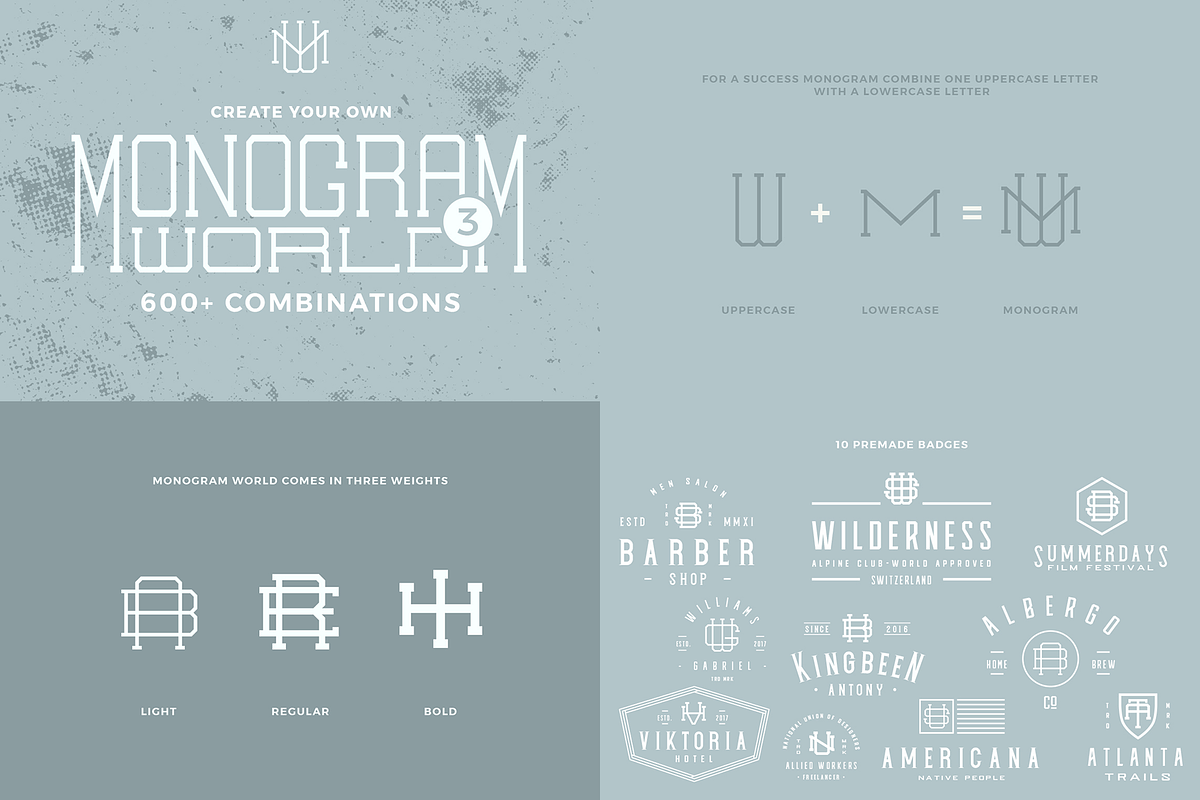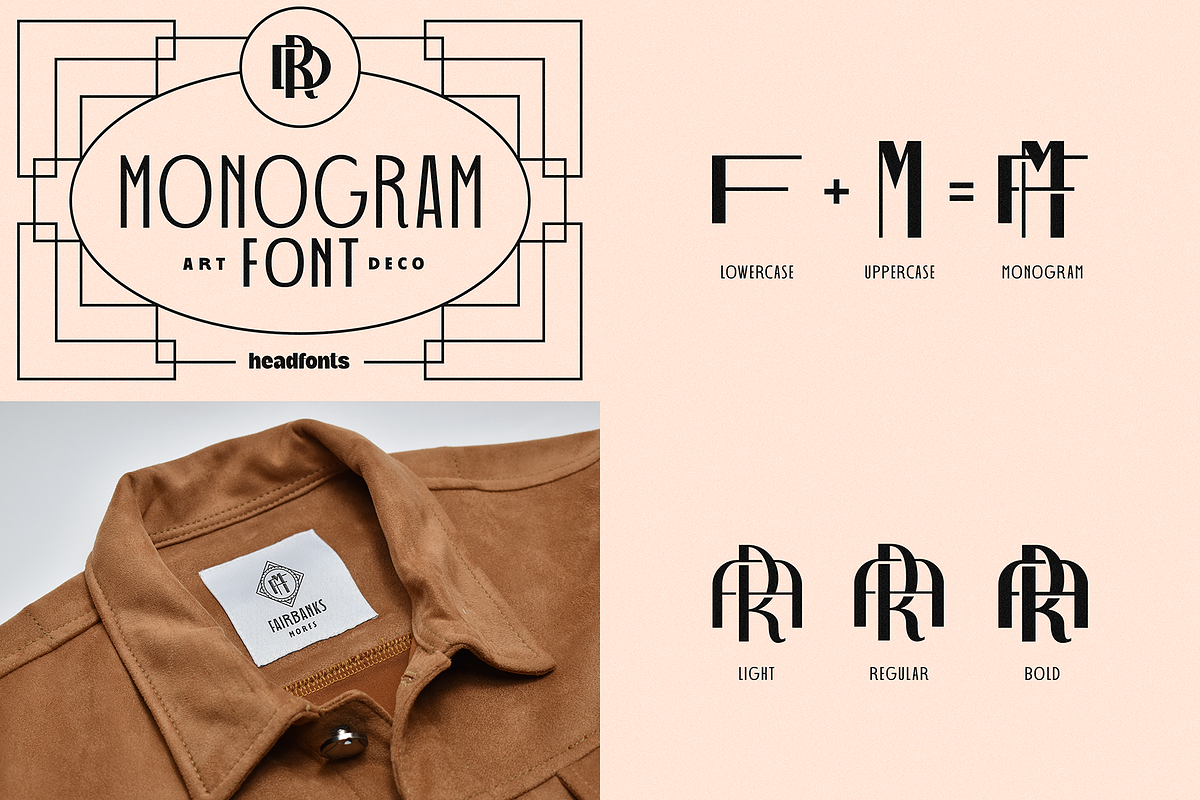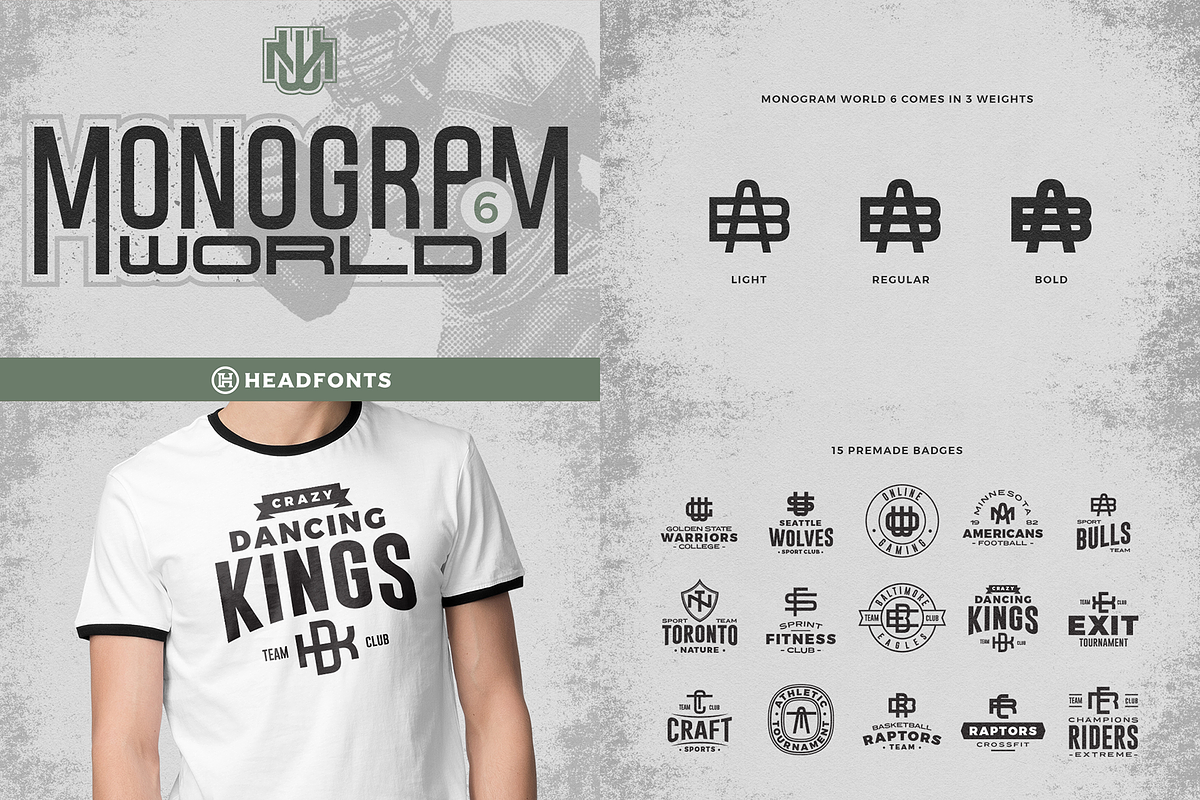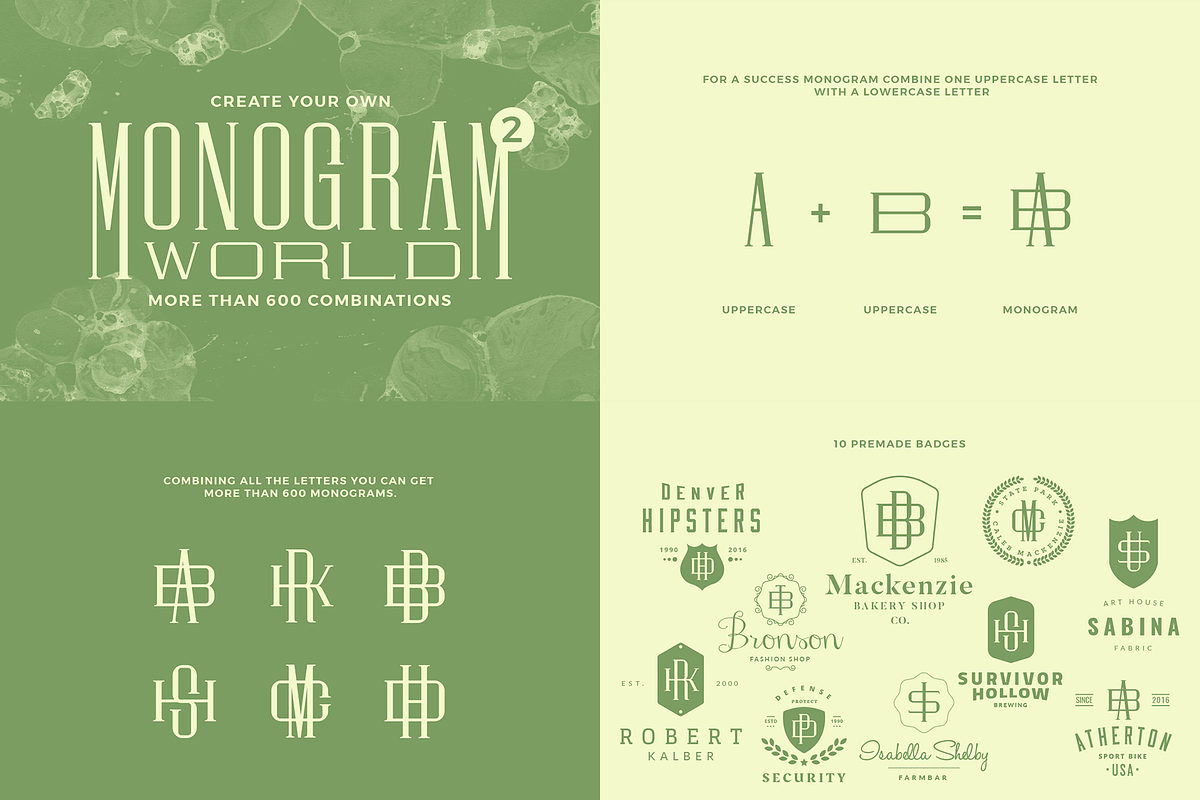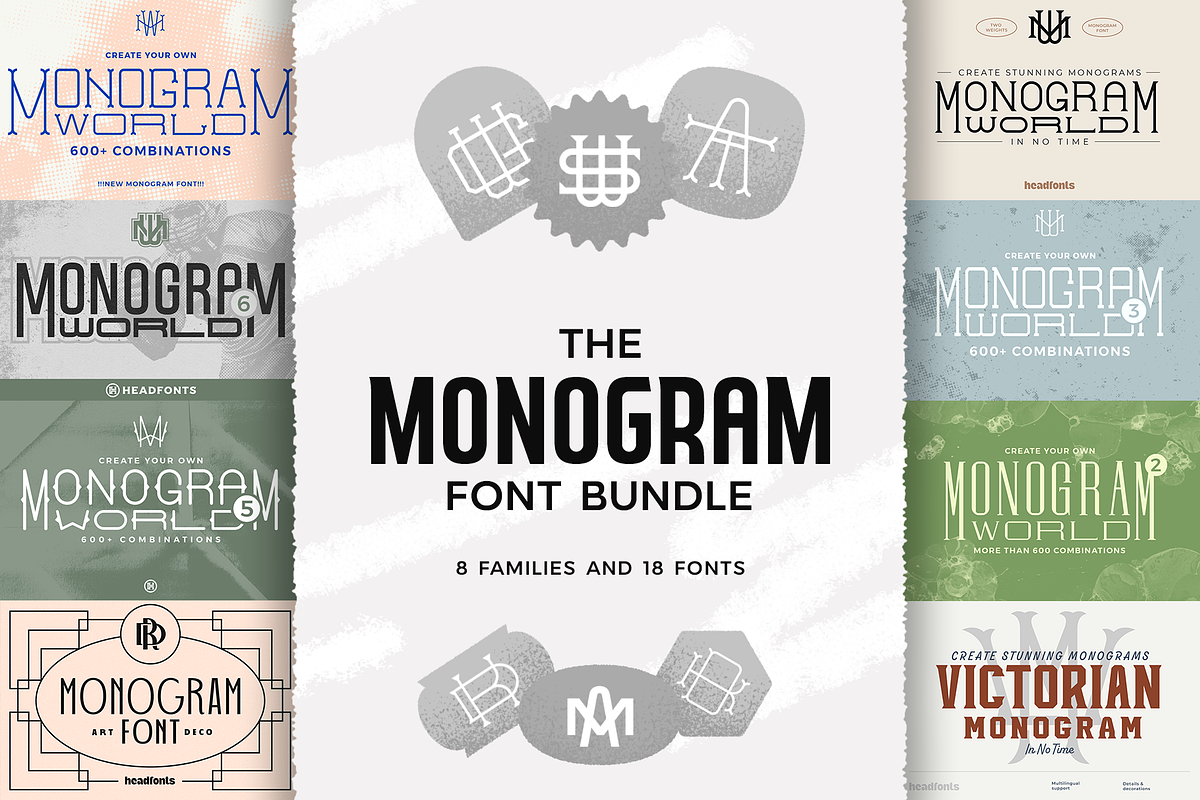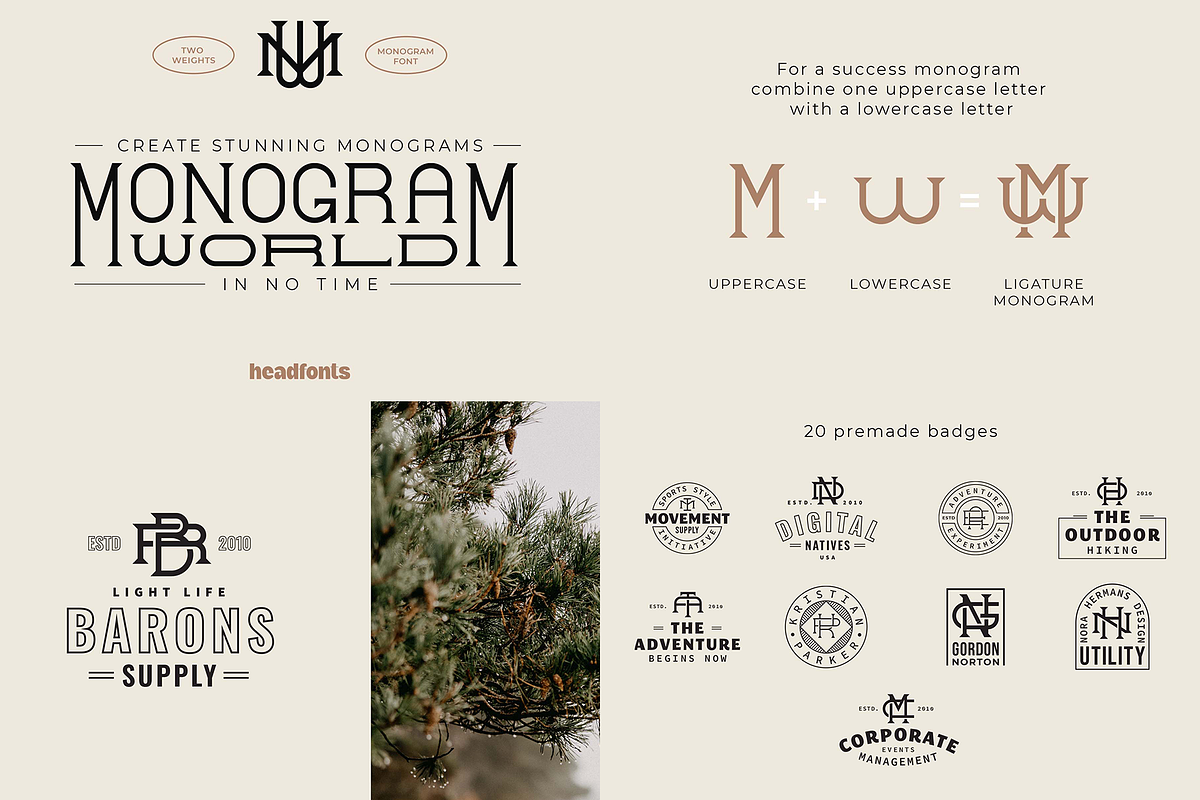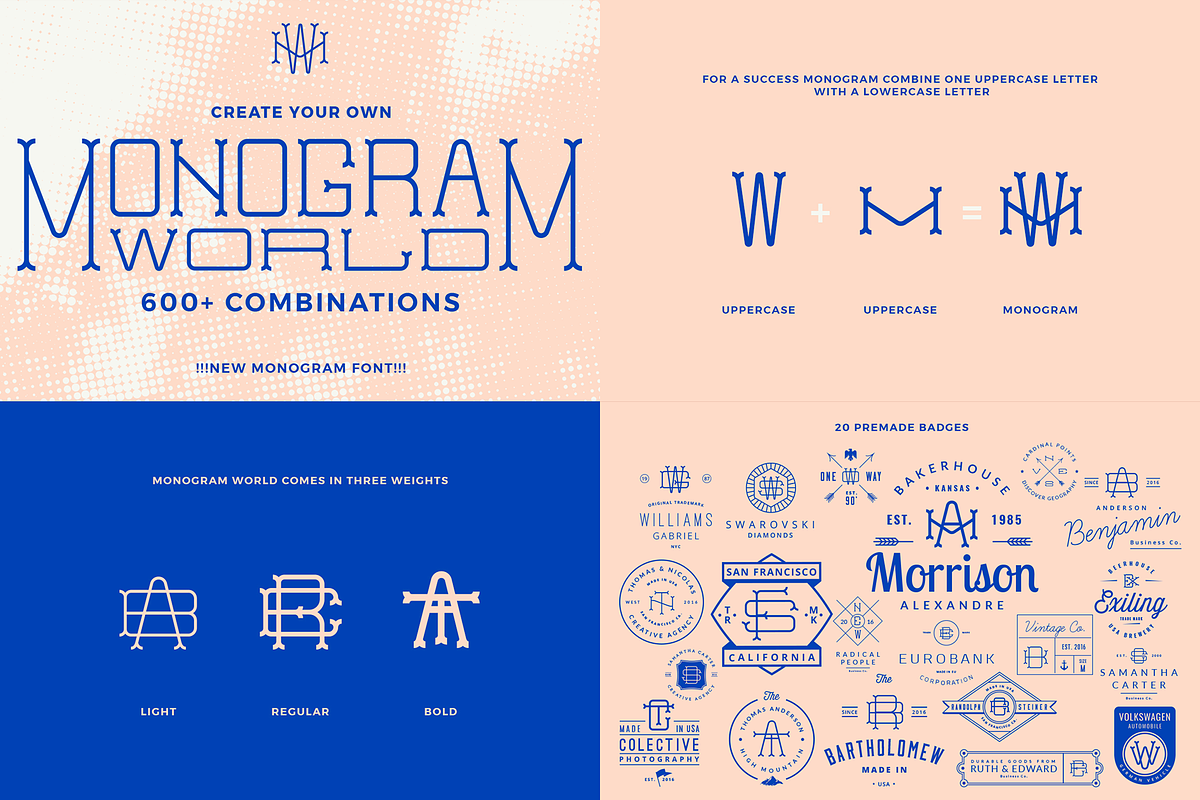
Monogram World Bundle-Monogram Font
Introducing the Monogram World bundle, an amazing collection of 18 monogram fonts, this bundle includes every single font designed for Monogram World collection in the past years. All fonts present in this bundle have uppercase and lower uppercase characters and two or three weights per font, Light, Regular and Bold, exception is the Monogram World Classic which has only one weight. Serif, slab serif, or sans serif, with decorated characters or without, this bundle has it all! Includes an array of styles, from vintage, classic, minimal or sporty this bundle will help you to create unique designs for your projects and outstanding monograms in no time. These fonts have endless combinations. Each letter was designed to perfectly combine with the others easily and with great results. The uppercase letters are tall and narrow, while the lower uppercase letters are wider and short bodied. For a successful monogram you simply have to choose an uppercase letter and a lower uppercase letter, place them on top of each other, adjust them to have the same center, and you will have an authentic monogram. Furthermore, included in this package you will find a bonus of 75 premade badges and 50 high-resolution textures, all used in this presentation. This bundle is perfect for monogram logos, stationery, wedding invitations, wedding monograms or packaging designs and much more, just let your creativity break free!
18 fonts Light, Regular and/or Bold
Upper and lower uppercase fonts
- Introducing the Monogram World bundle, an amazing collection of 18 monogram fonts, this bundle includes every single font designed for Monog
- Includes an array of styles, from vintage, classic, minimal or sporty this bundle will help you to create unique designs for your projects a
- Furthermore, included in this package you will find a bonus of 75 premade badges and 50 high-resolution textures, all used in this presentat
- Introducing the Monogram World bundle, an amazing collection of 18 monogram fonts, this bundle includes every single font designed for Monog
- Includes an array of styles, from vintage, classic, minimal or sporty this bundle will help you to create unique designs for your projects a
- Furthermore, included in this package you will find a bonus of 75 premade badges and 50 high-resolution textures, all used in this presentat
- All fonts present in this bundle have uppercase and lower uppercase characters and two or three weights per font, Light, Regular and Bold, e
- Serif, slab serif, or sans serif, with decorated characters or without, this bundle has it all!
- The uppercase letters are tall and narrow, while the lower uppercase letters are wider and short bodied.
- For a successful monogram you simply have to choose an uppercase letter and a lower uppercase letter, place them on top of each other, adjus
Why Monogram World Bundle-Monogram Font is worth a look
Monogram World Bundle-Monogram Font by Headfonts fits naturally into Branding, posters, packaging, typography.